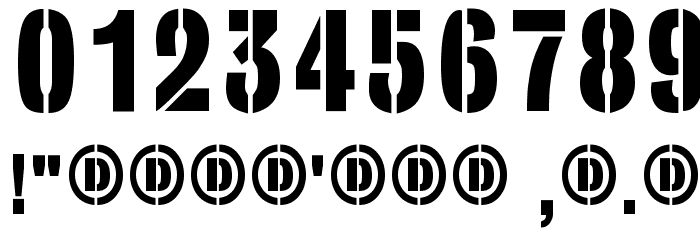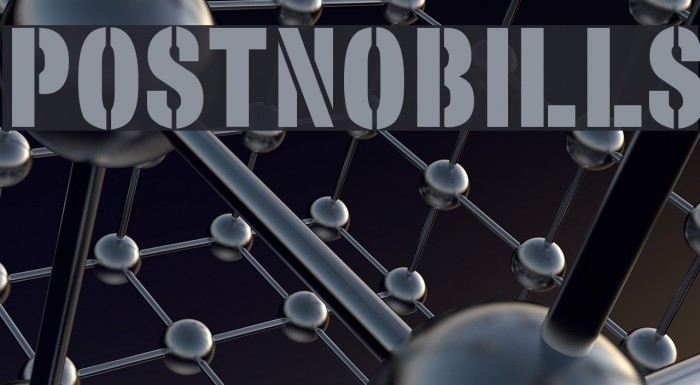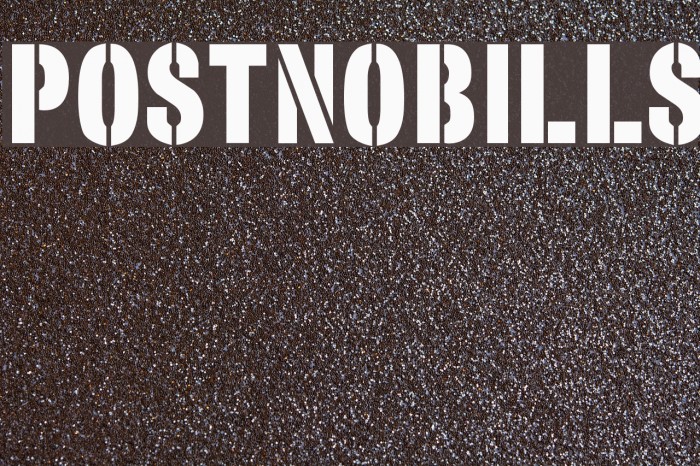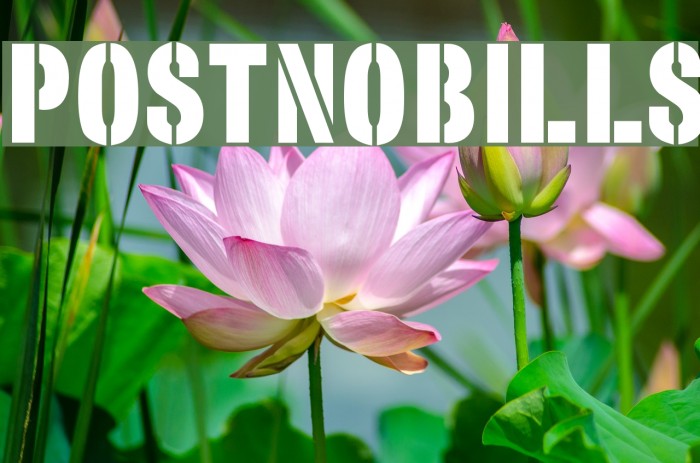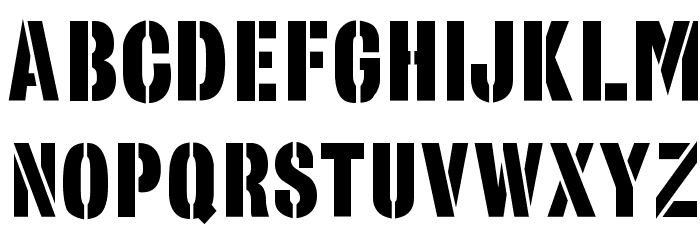
PostNoBills Font
This font features a bold, stencil-like design with strong geometric shapes and high contrast between thick and thin strokes. The characters are uppercase only, with a distinct industrial and utilitarian aesthetic. The cut-out sections within each letter give it a rugged, urban feel, reminiscent of signage or posters. The numbers and special characters maintain the same bold style, ensuring consistency across all glyphs. This font is highly legible and impactful, making it suitable for attention-grabbing designs.
A bold, stencil-style font with high contrast and geometric shapes.
• Proposed Projects: Ideal for posters, signage, branding, and any project requiring a strong, industrial look.
• Category: Decorative/Display
• Bold: Yes
• Italic: No
• Weight: Bold
• Width: Normal
• Character Spacing: Normal
• Contrast: High
• Overall Style: Industrial, Urban
• Use Case: Headlines, Logos, Posters